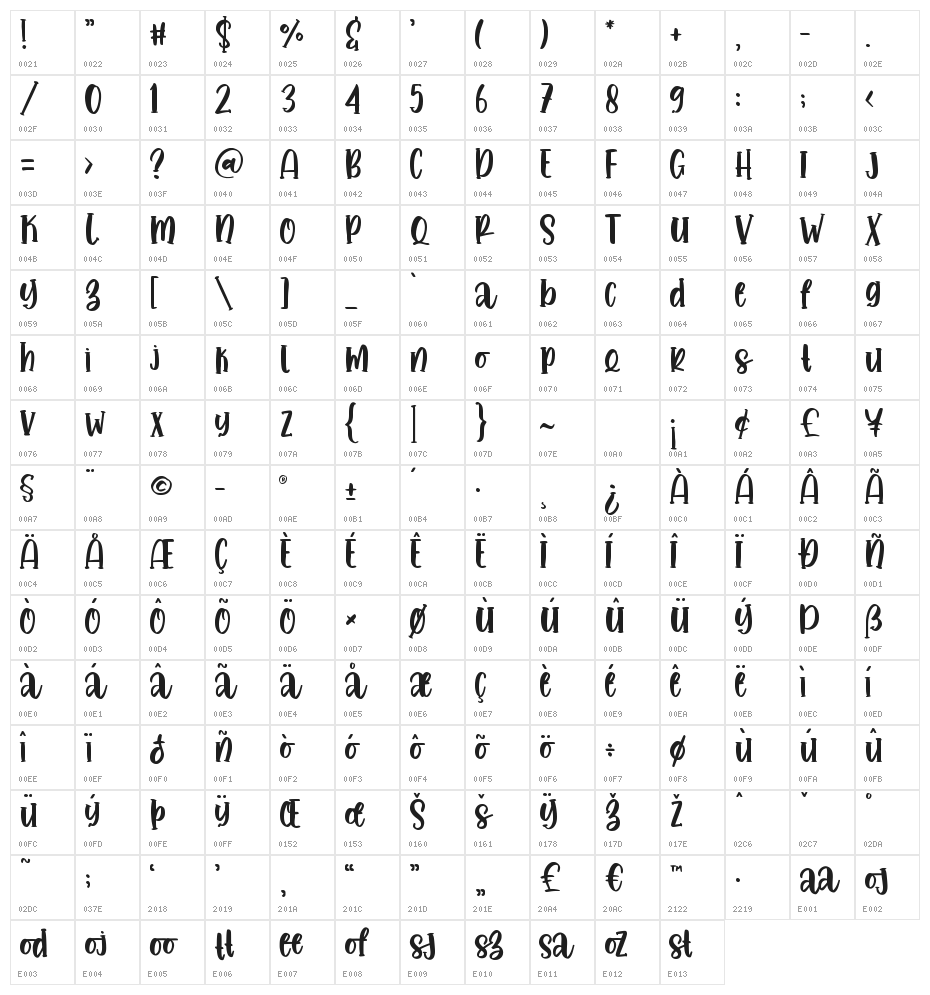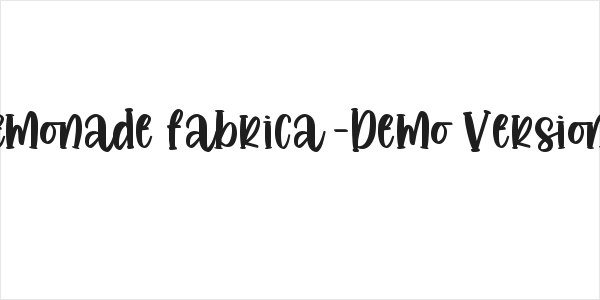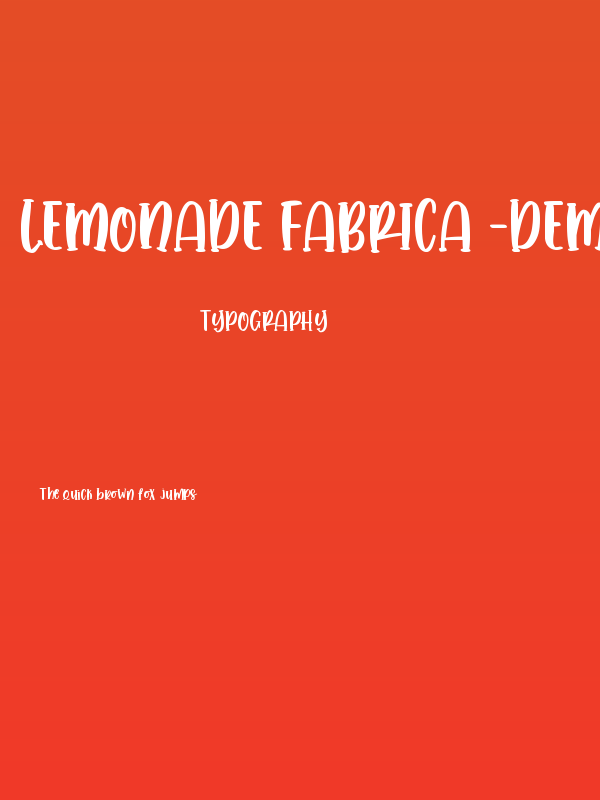
Lemonade fabrica -Demo Version- Font
Lemonade fabrica -Demo Version- Description
This font features a playful and whimsical design, characterized by its bold and flowing letterforms. The uppercase and lowercase letters exhibit a hand-drawn style with a slight slant, giving it a casual and friendly appearance. The strokes are thick and consistent, providing a strong visual impact. The numbers and special characters maintain the same playful aesthetic, making them suitable for creative and informal projects. The overall design is cohesive, with a lively and energetic feel that can add a touch of fun to any text.
| Proposed Projects | Ideal for children's books, greeting cards, playful branding, and creative posters. |